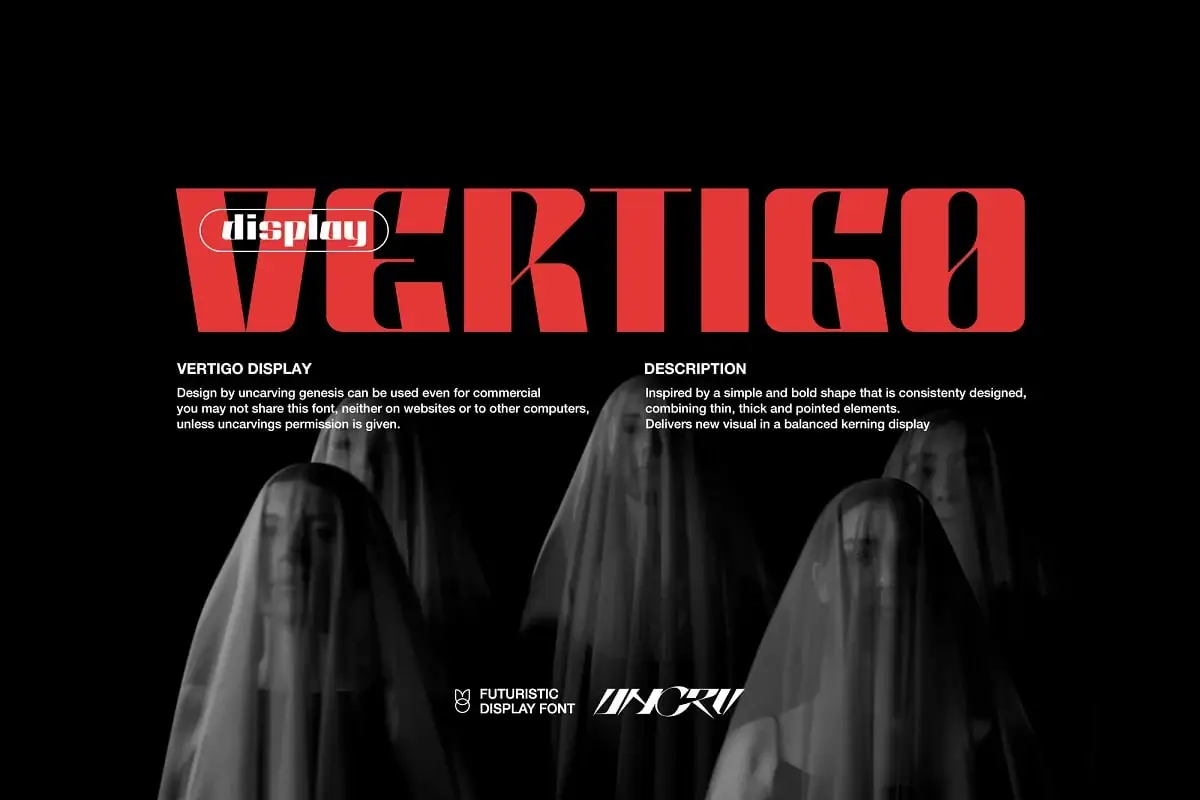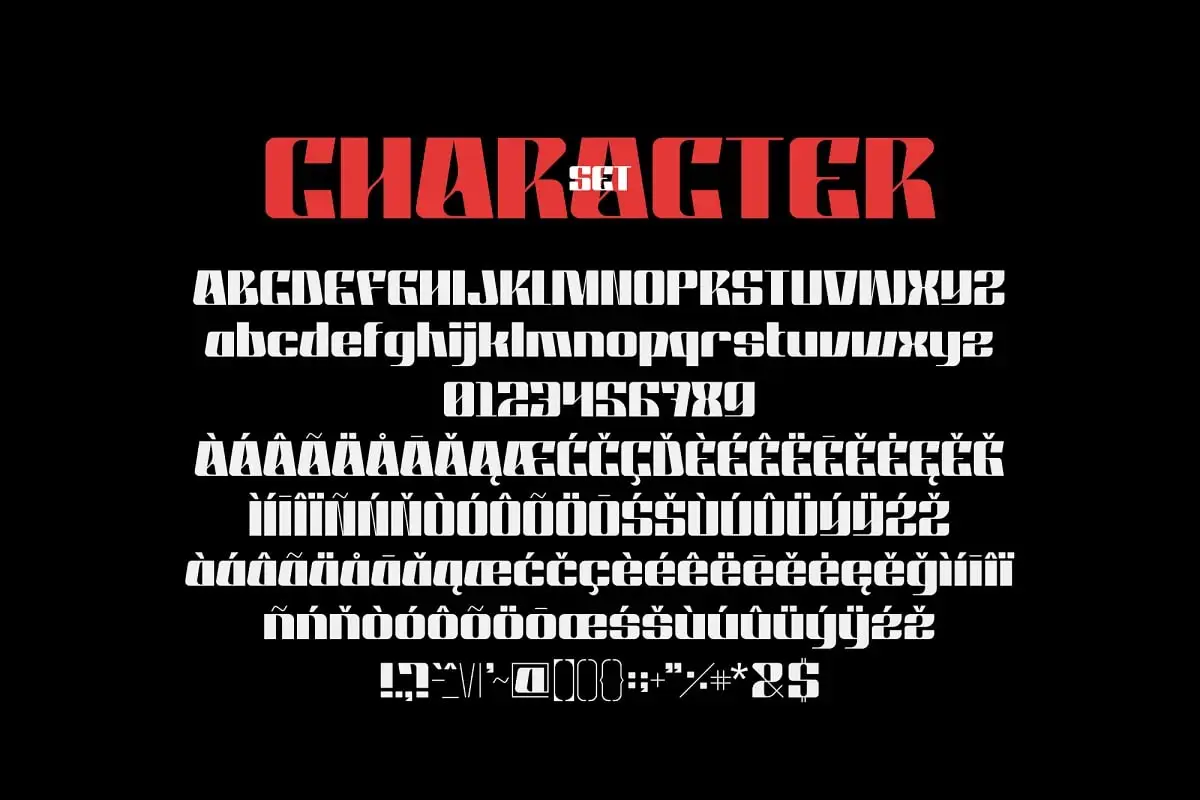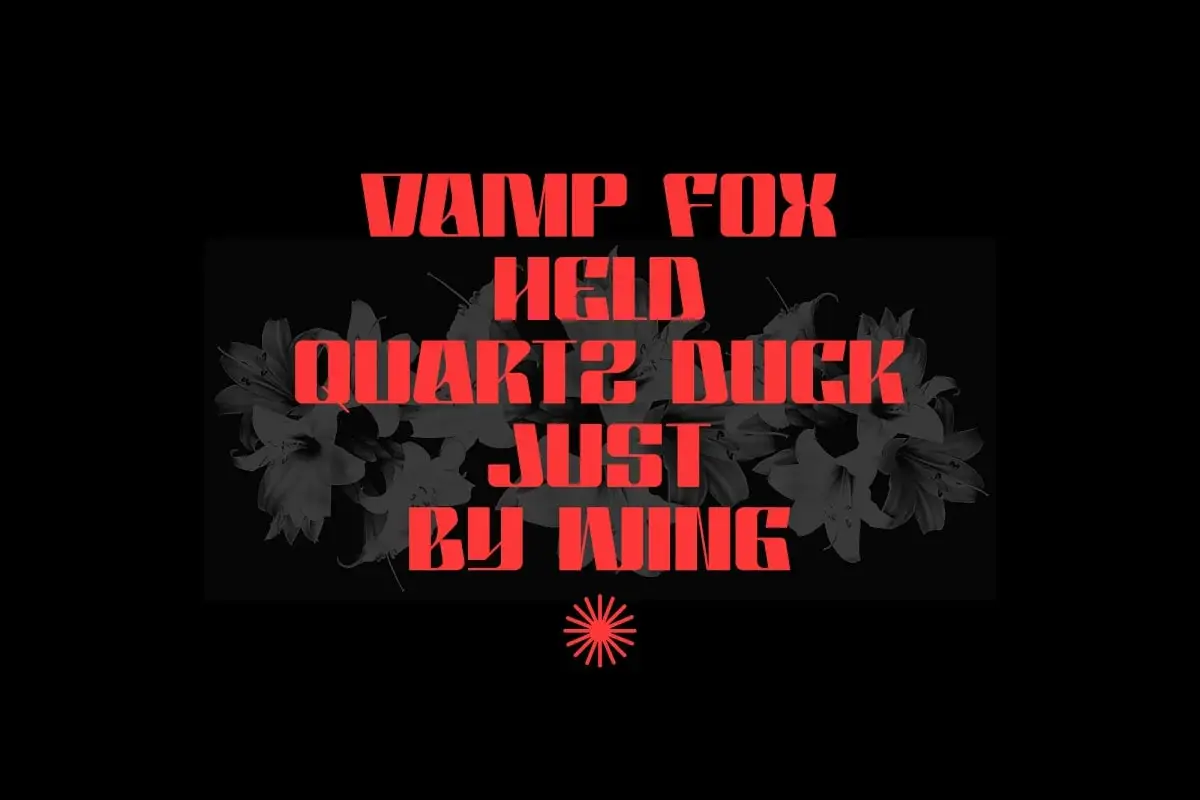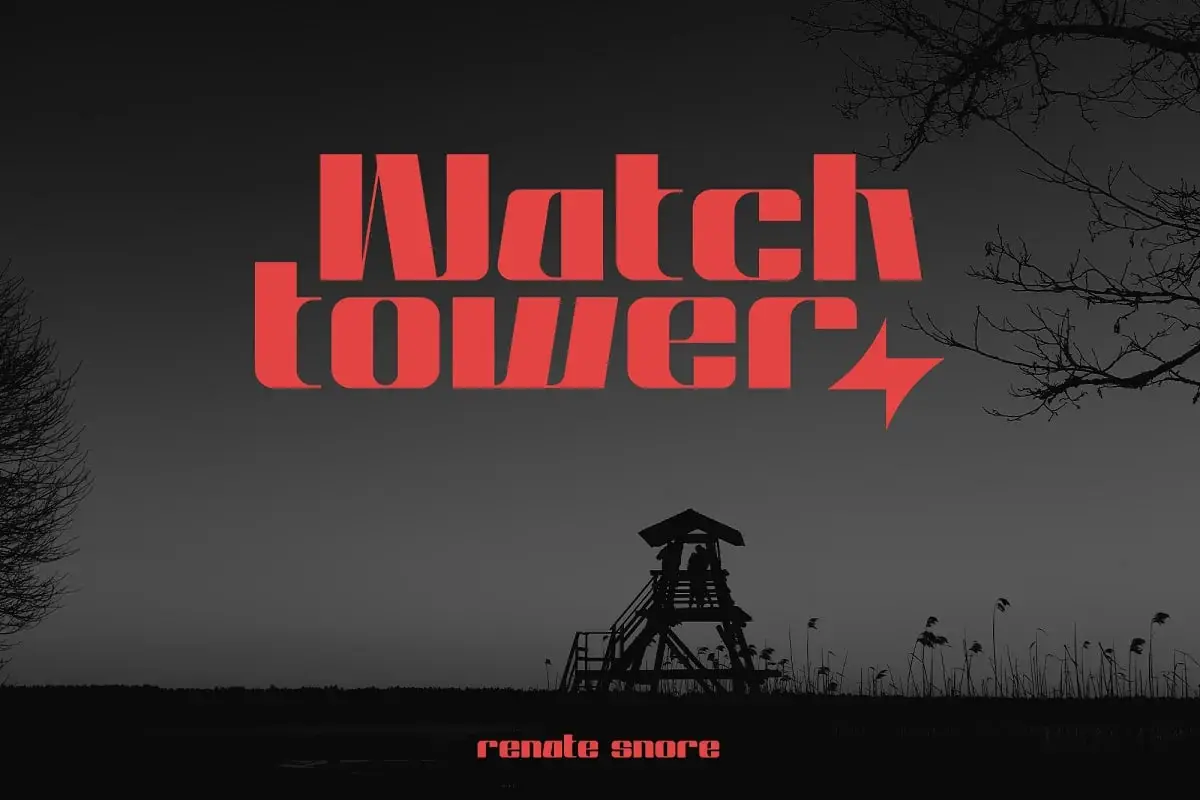
Vertigo-Display Font
Introducing the Vertigo-Display Font, a striking typeface designed to make a bold statement in any project. With its unique character shapes and modern aesthetics, this font is perfect for branding, logos, and eye-catching headlines.
• Multiple weights for versatile use
• Clear legibility at various sizes
• Uppercase and lowercase letters included
• Ideal for web and print applications
• Use in promotional materials, advertisements, and social media graphics
• Perfect for creating unique logos and branding elements